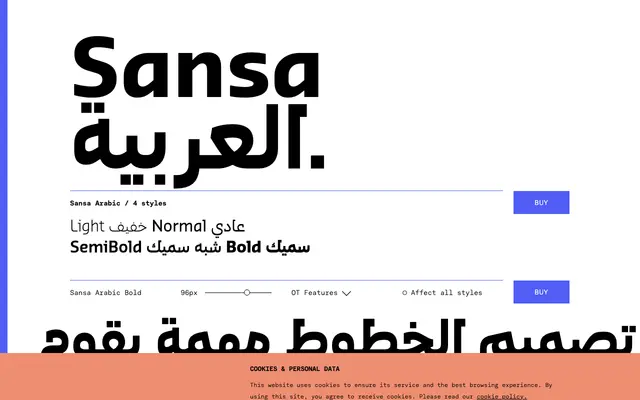
Sansa Arabic
TYPE BY · Fred Smeijers · 2020
The Arabic extension of Fred Smeijers's Sansa superfamily, released in 2020 across four weights with full Latin support alongside Arabic script.
Part of the broader Sansa superfamily originally designed by Fred Smeijers for his own correspondence and released as a retail design in 2002, the Arabic variant arrived in 2020 alongside Greek and Cyrillic additions. Four weights run from Light to Bold, covering Arabic, Persian and Urdu script forms alongside an extensive Latin character set with small caps, multiple figure styles and comprehensive OpenType features. The parent family spans three widths and five weights with matching italics in its Latin form, giving designers a consistent typographic system across scripts.
Sansa is a sanserif superfamily by Fred Smeijers with humanist proportions and a warm, characterful voice; the Arabic extension follows the same design principles across its four weights.